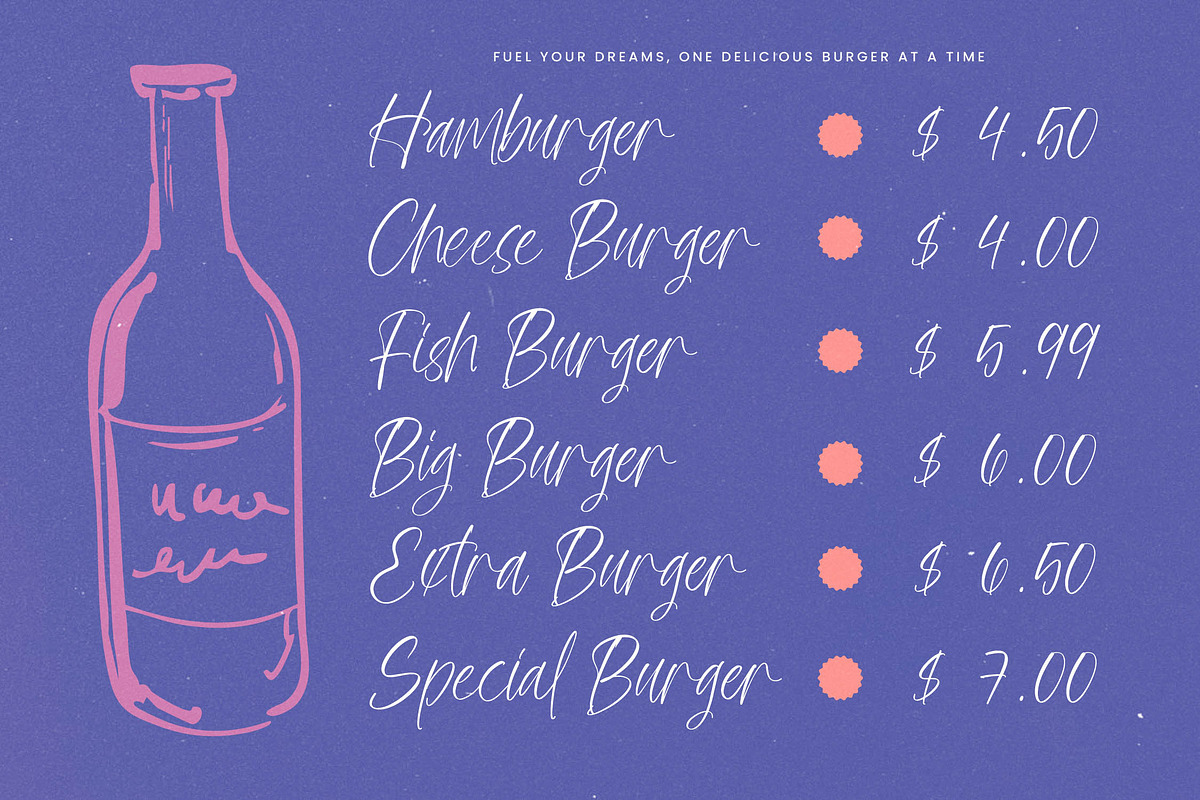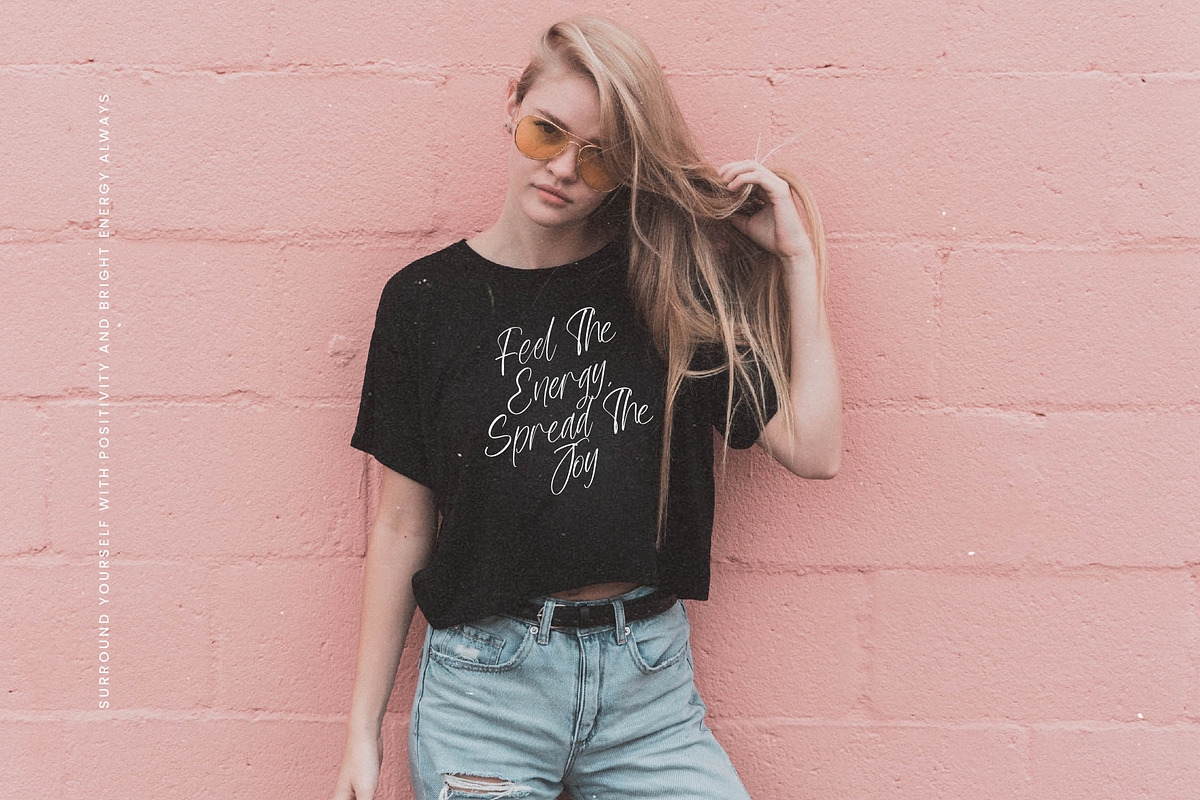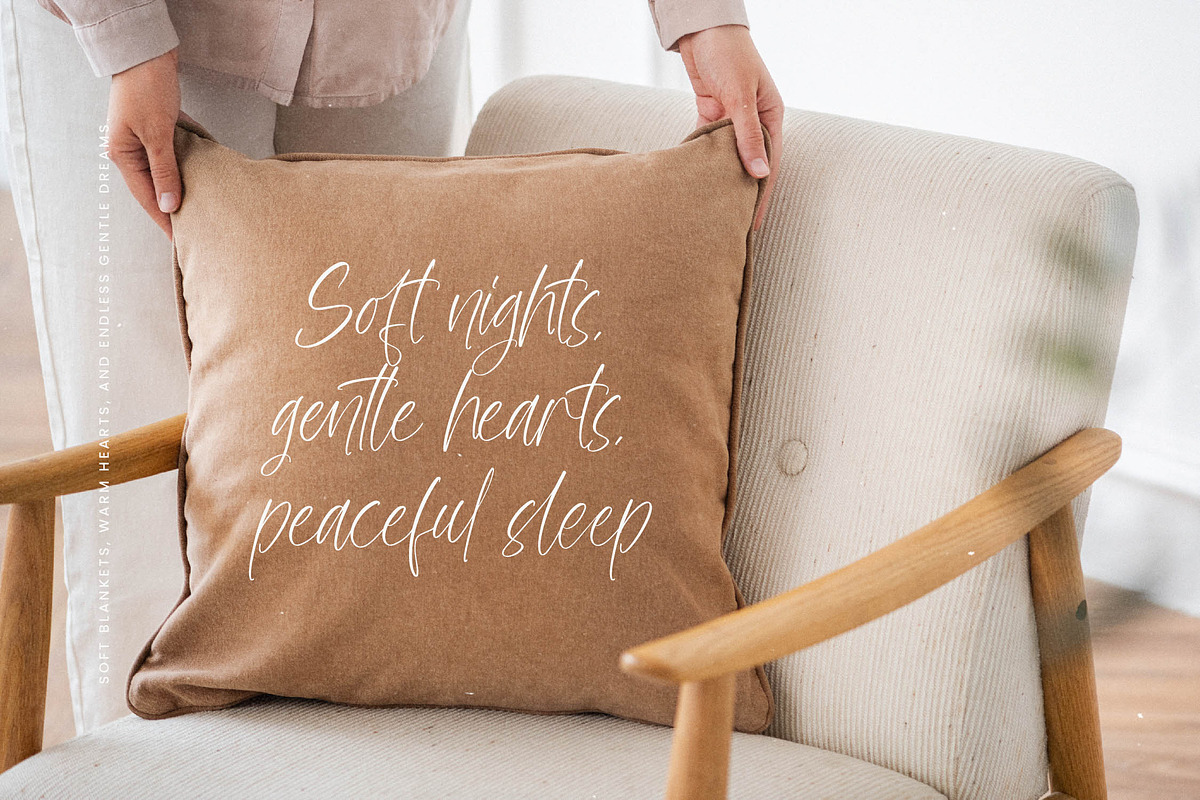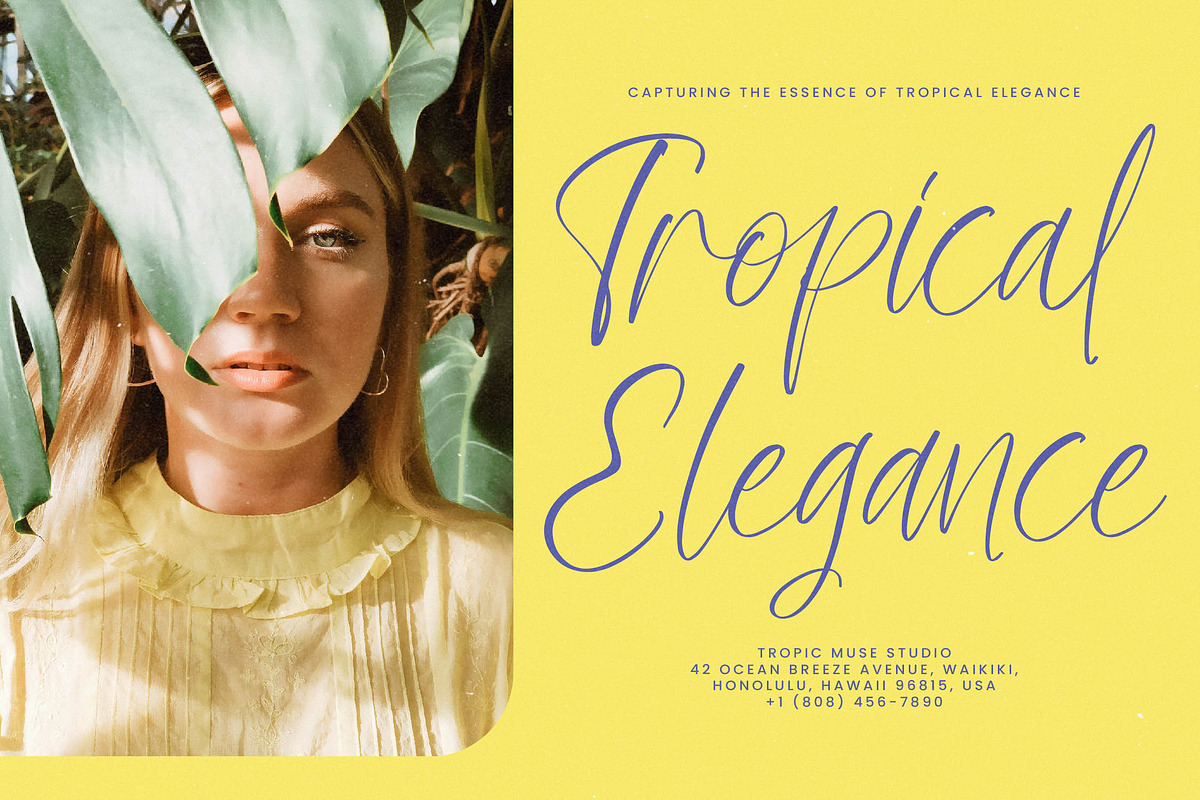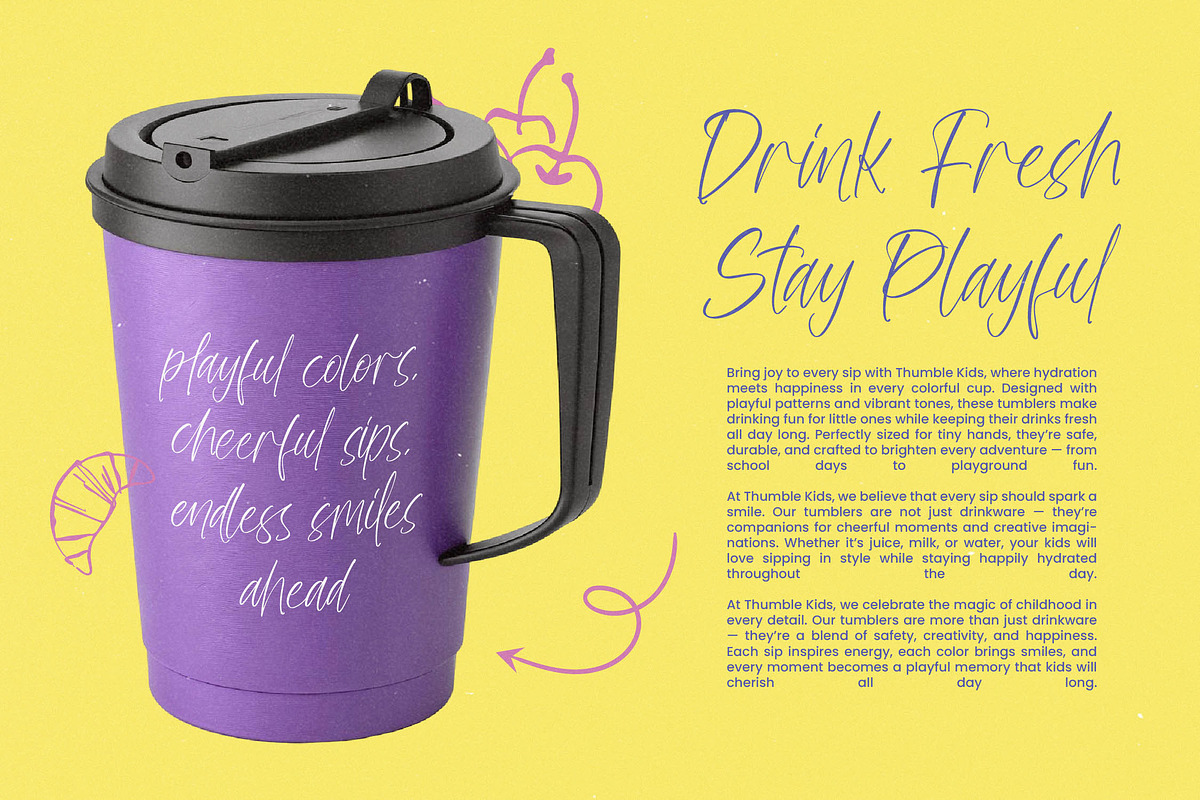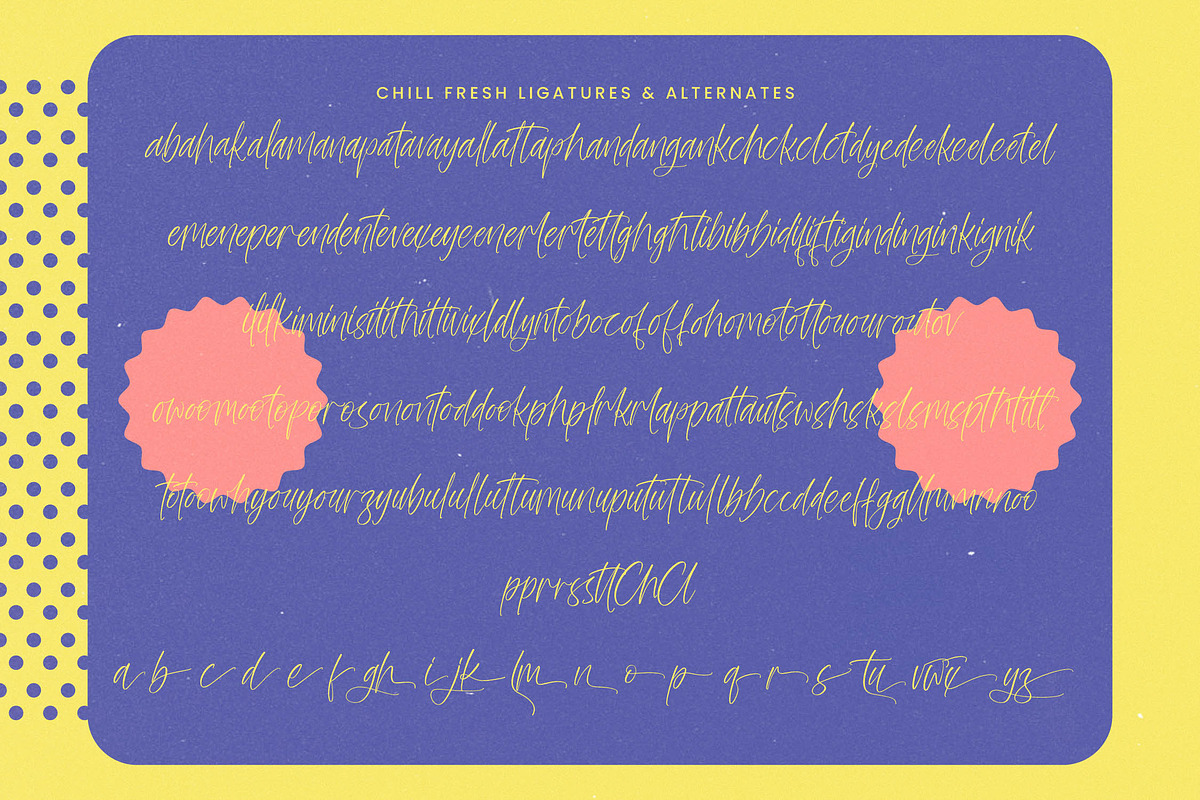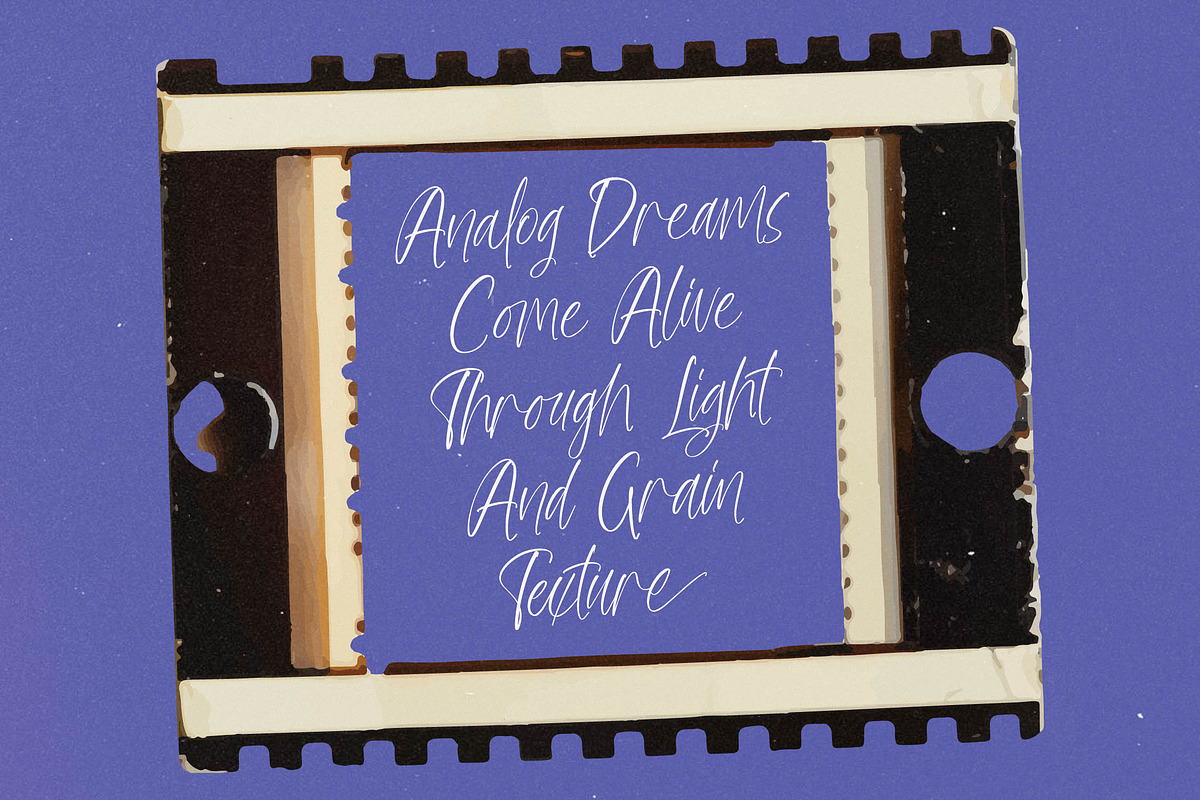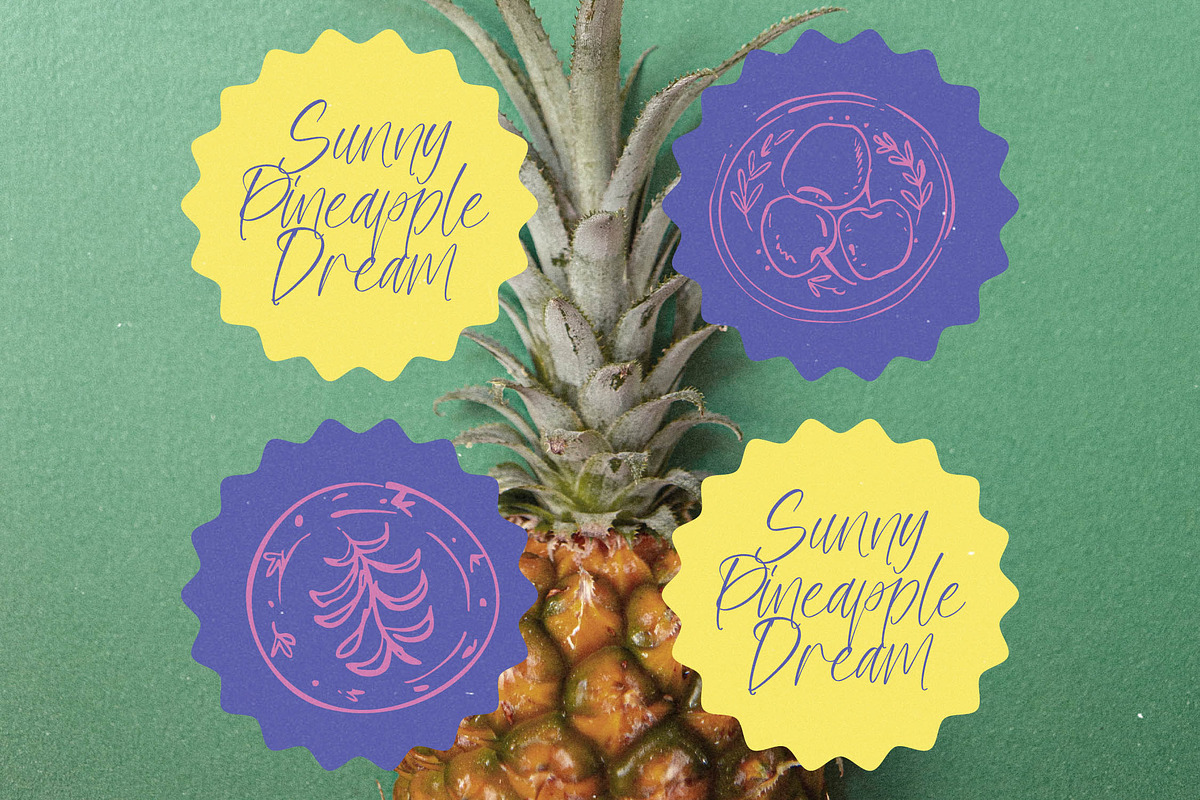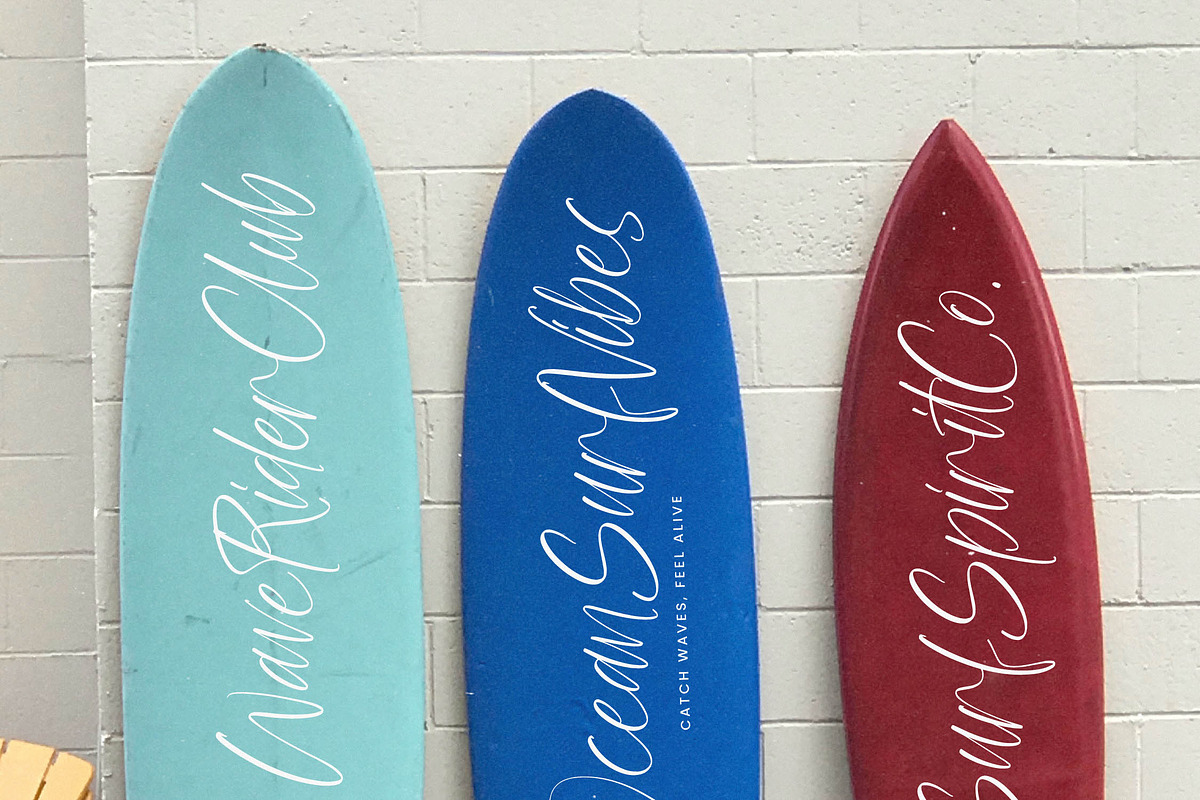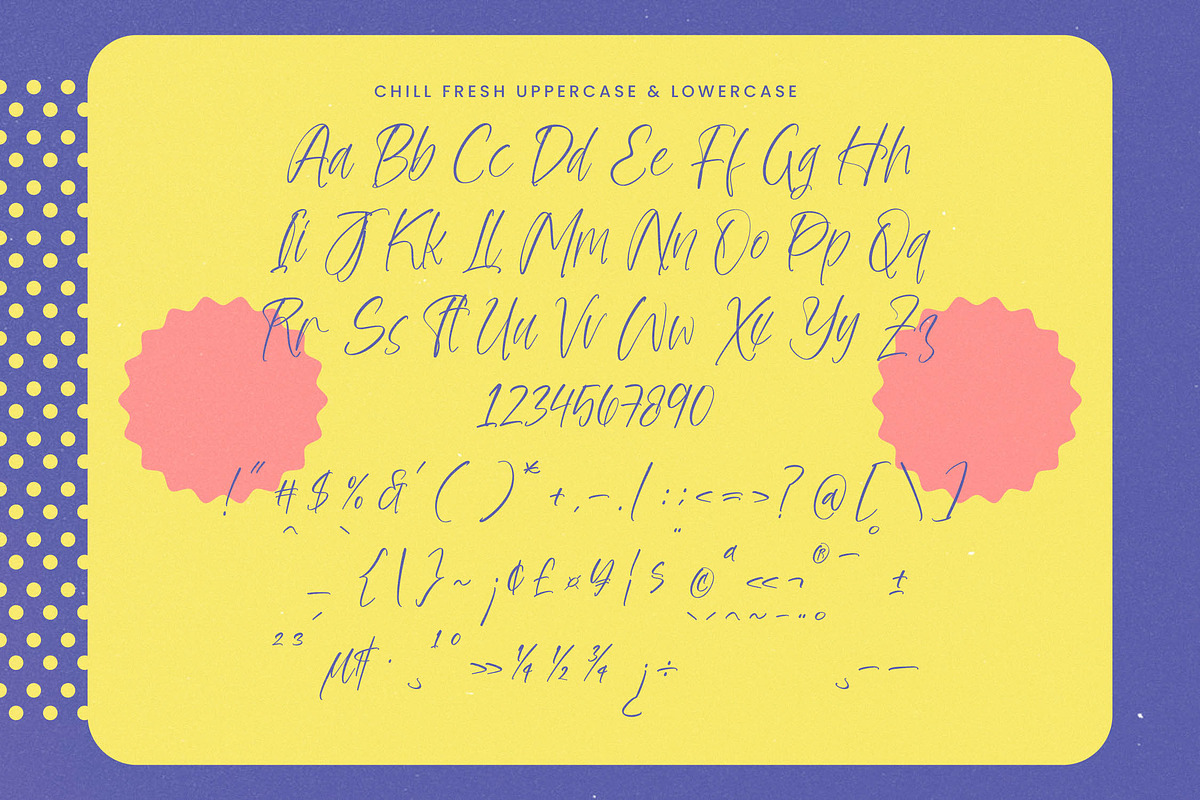
Chill Fresh Modern Handwritten Font
Chill Fresh - Modern Handwritten Font, ChillFresh is a modern handwritten script font that embodies effortless style and relaxed charm. Featuring 136 ligatures and 26 alternates with a total of 494 glyphs, this font offers smooth, flowing strokes that create a natural handwritten feel. Perfect for logos, invitations, quotes, social media content, and branding projects, ChillFresh brings warmth, creativity, and authenticity to any design that needs a personal touch.